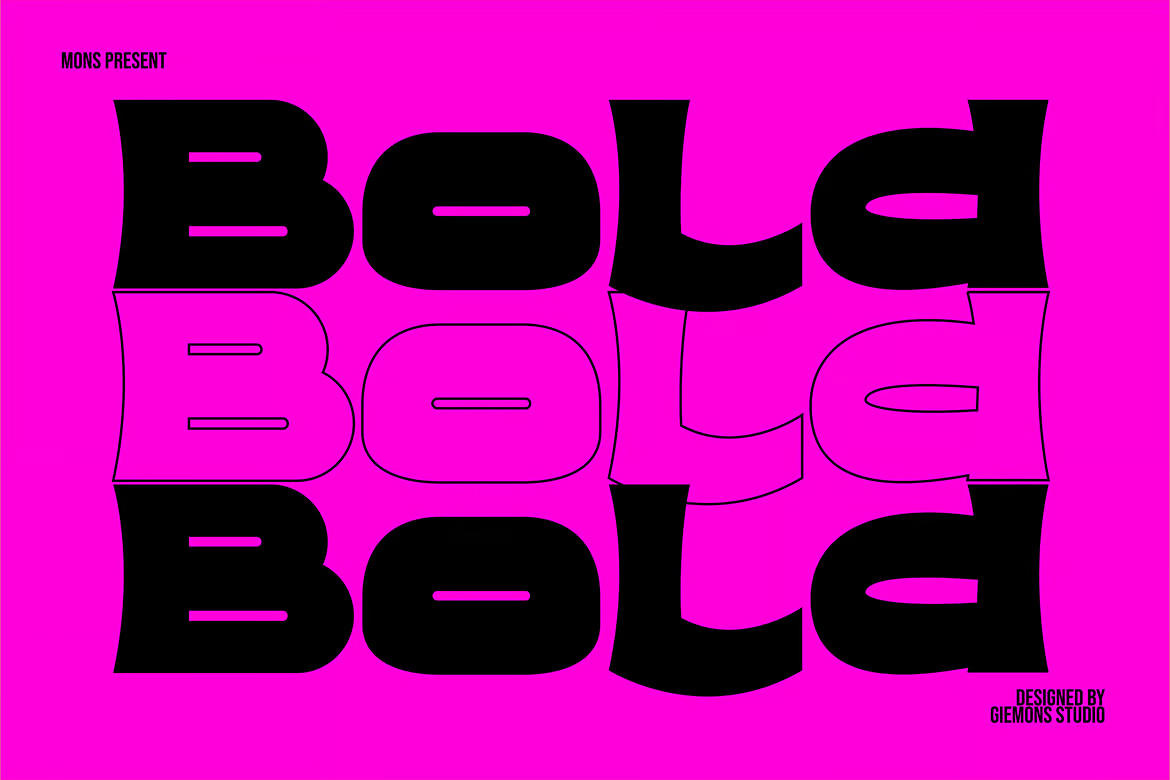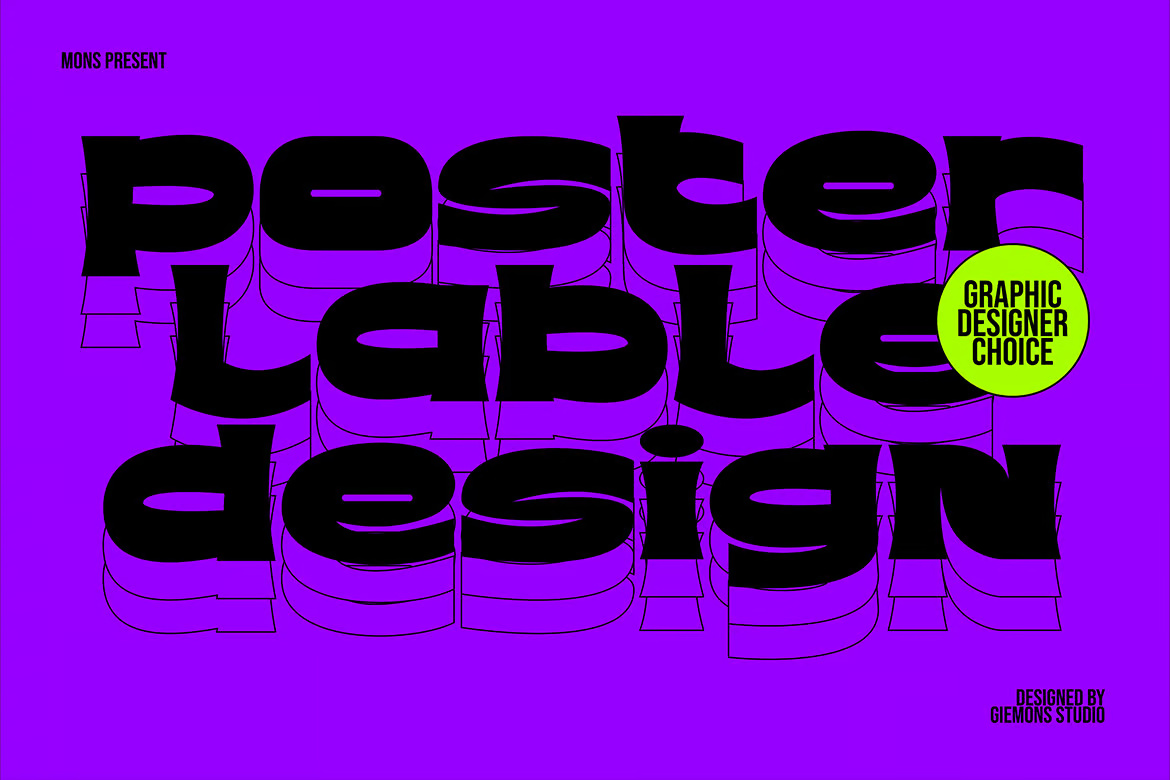
Twister Bold
Twister Bold is a modern, eye-catching font with a strong, confident presence. Its bold, bubbly style makes it perfect for creating standout logos, attention-grabbing headlines, dynamic posters, and more. The smooth curves and playful energy add a touch of fun while maintaining a professional and polished look.